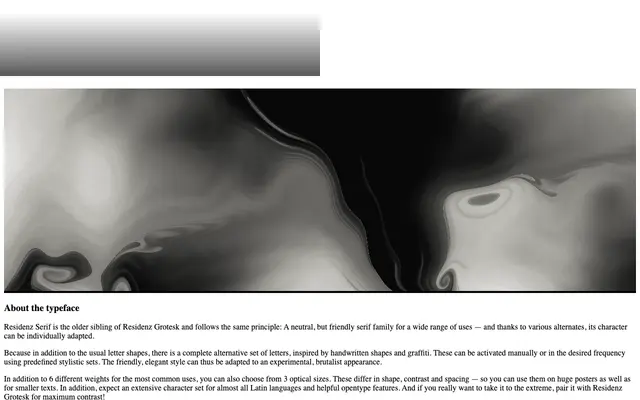
Residenz Serif
La Bolde Vita · 2021
A neutral contemporary serif in six weights and three optical sizes, with a full set of alternate letterforms drawn from handwriting and graffiti that shift its tone from refined to experimental.
Released in 2021 as a companion to Residenz Grotesk, this family spans 18 styles across Small, Standard and Large optical sizes, each tuned in contrast, shape and spacing for use at different scales. A complete alternate character set, inspired by handwritten and graffiti forms, can be mixed in at variable frequencies via predefined stylistic sets, allowing the same typeface to read as elegant or brutalist depending on the setting. With 980 glyphs and extensive OpenType feature support including oldstyle figures, circled numbers and slashed zero, it covers a wide range of typographic needs across Latin languages.
Described by the foundry as a contemporary serif, the design sits in a neutral but friendly register with modulated contrast across three optical sizes, placing it in the tradition of text serifs rather than display or transitional categories.